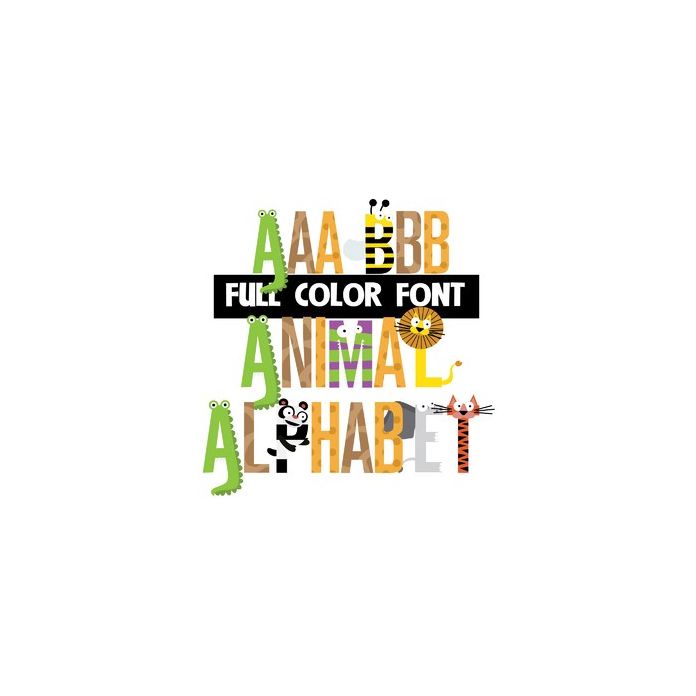
This full-color font features animal-esque letters for the uppercase. Each letter is represented by an animal that starts with that letter. The lowercase is a brown animal spot design. There is a second alt lowercase that is yellow spotted that you can access through Silhouette's glyph map.